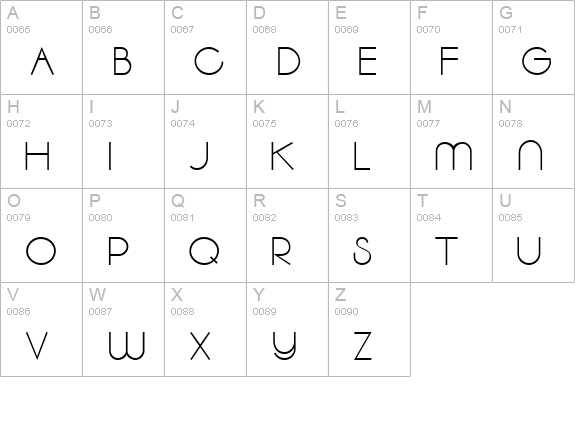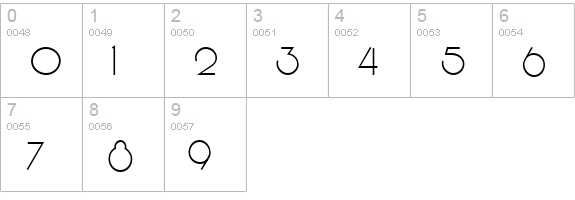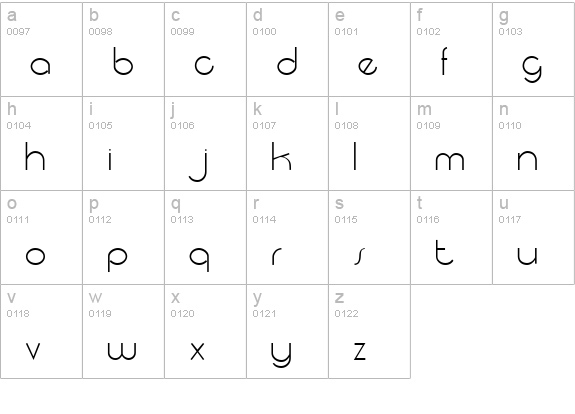
Introducing Spats SSi, a captivating and versatile font that will elevate your designs to new heights. With its sleek and modern aesthetic, this typeface is perfect for a wide range of projects, from branding and advertising to web design and print media. Spats SSi boasts a unique blend of elegance and playfulness, making it a standout choice for any creative endeavor. Its clean lines and balanced proportions ensure legibility, while its subtle curves and stylish details add a touch of sophistication. What sets Spats SSi apart is its availability as a free download at FontsMarket.com. Yes, you read that right! This exceptional font can be yours without any cost, making it an incredible value for designers and creatives on a budget. FontsMarket.com offers a hassle-free and convenient way to access this font, allowing you to unleash your creativity without breaking the bank. Whether you're designing a logo, crafting a poster, or creating a stunning website, Spats SSi is the perfect companion to bring your vision to life. Its versatility and distinctive charm will captivate your audience and leave a lasting impression. So why wait? Take advantage of this incredible opportunity to enhance your design arsenal with Spats SSi. Head over to FontsMarket.com today and experience the power of this remarkable font for yourself. Don't miss out on this amazing free resource that will take your designs to the next level.